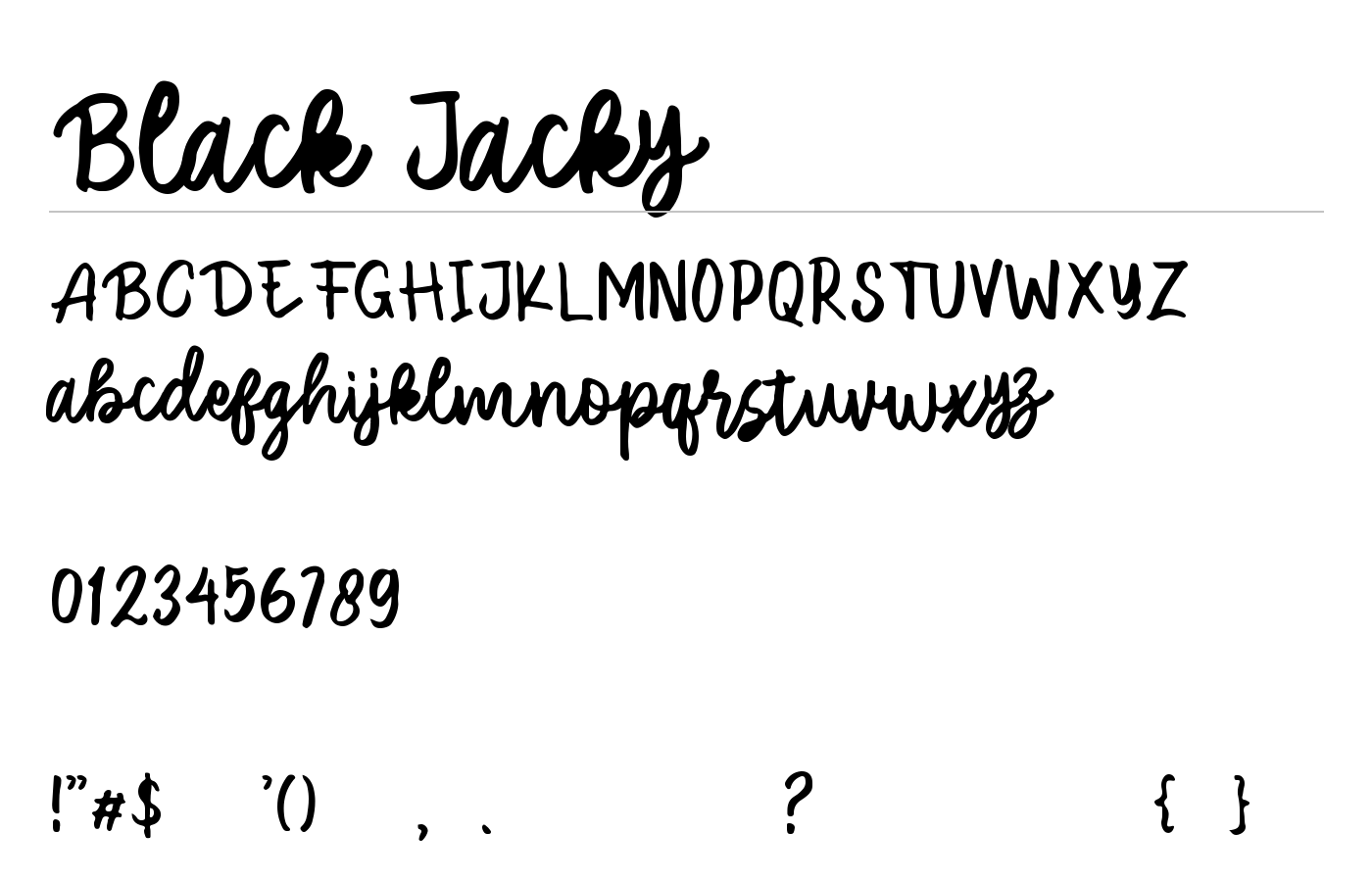
Black Jacky is a playful and casual script font featuring smooth, connected strokes with moderate weight and a handwritten feel. Its lively letterforms and balanced spacing make it ideal for creative, informal designs such as invitations, branding, and social media graphics. This font adds a friendly, approachable touch while maintaining good readability for both display and short text use.
Black Jacky Font
About Black Jacky Font